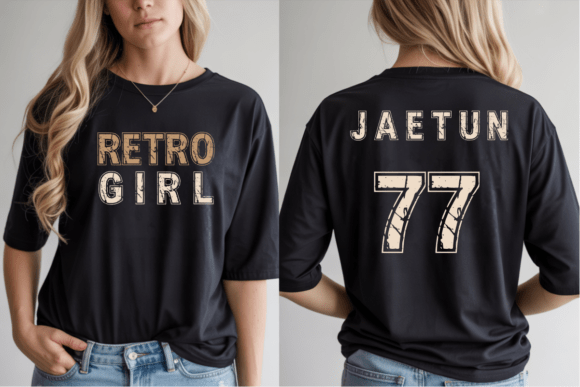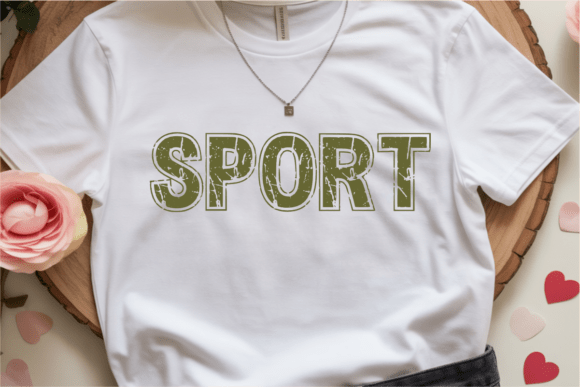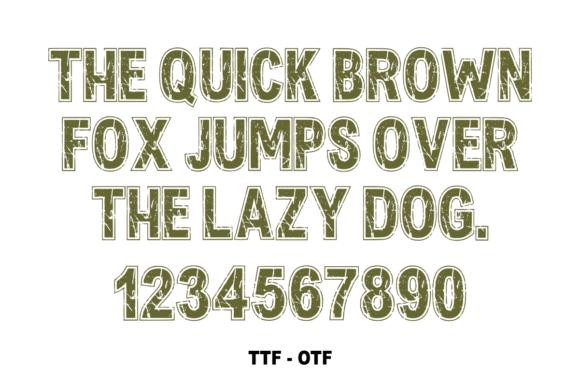
Bring the Intensity of the Stadium to Your Screen with Block Retro Font
Are you looking for a font that embodies the spirit of sports and athleticism? Look no further than the Block Retro Jersey font, a powerful and bold typeface designed specifically for sports branding and fan apparel. This font is perfect for designers and crafters who want to bring the excitement of the stadium to their screen and create a professional, athletic look.
What is Block Retro Font?
The Block Retro Jersey font is a classic blocky typeface with a distressed “jersey print” texture that mimics the look of vintage collegiate wear. Its high-contrast outlines and sturdy verticality make it the ultimate choice for team logos, varsity jackets, and sports-themed event flyers. This font is designed to be legible even from a distance, making it perfect for creating eye-catching designs that stand out.
Key Features of Block Retro Font
- Classic Blocky Proportions: The Block Retro Jersey font features classic blocky proportions that are reminiscent of traditional athletic typography.
- Distressed “Jersey Print” Texture: The font’s distressed texture gives it a vintage, worn look that’s perfect for creating a retro aesthetic.
- High-Contrast Outlines: The font’s high-contrast outlines make it easy to read, even from a distance.
- Sturdy Verticality: The font’s sturdy verticality gives it a strong, athletic look that’s perfect for sports branding.
Why Choose Block Retro Font?
There are many reasons why designers and crafters choose the Block Retro Jersey font for their sports branding and fan apparel projects. Here are just a few:
- Authentic Athletic Look: The Block Retro Jersey font is designed to mimic the look of vintage collegiate wear, making it perfect for creating authentic athletic designs.
- Versatility: The font is versatile and can be used for a wide range of projects, from team logos and varsity jackets to sports-themed event flyers.
- Easy to Read: The font’s high-contrast outlines and sturdy verticality make it easy to read, even from a distance.
How to Use Block Retro Font
The Block Retro Jersey font is easy to use and can be incorporated into a wide range of design projects. Here are a few ideas to get you started:
- Team Logos: Use the Block Retro Jersey font to create bold, eye-catching team logos that stand out.
- Varsity Jackets: The font is perfect for creating authentic varsity jacket designs that mimic the look of vintage collegiate wear.
- Sports-Themed Event Flyers: Use the font to create eye-catching sports-themed event flyers that grab attention.
Tips for Pairing Block Retro Font with Other Design Elements
To get the most out of the Block Retro Jersey font, it’s essential to pair it with other design elements that complement its bold, athletic look. Here are a few tips:
- Bold Team Colors: Pair the font with bold team colors to create a professional, athletic look.
- Numbers and Graphics: Use the font in combination with numbers and graphics to create a dynamic, eye-catching design.
The Block Retro Jersey font is a powerful and bold typeface that’s perfect for designers and crafters who want to bring the excitement of the stadium to their screen. With its classic blocky proportions, distressed “jersey print” texture, and high-contrast outlines, this font is the ultimate choice for sports branding and fan apparel. Whether you’re creating team logos, varsity jackets, or sports-themed event flyers, the Block Retro Jersey font is sure to deliver a professional, athletic look that honors sports history.